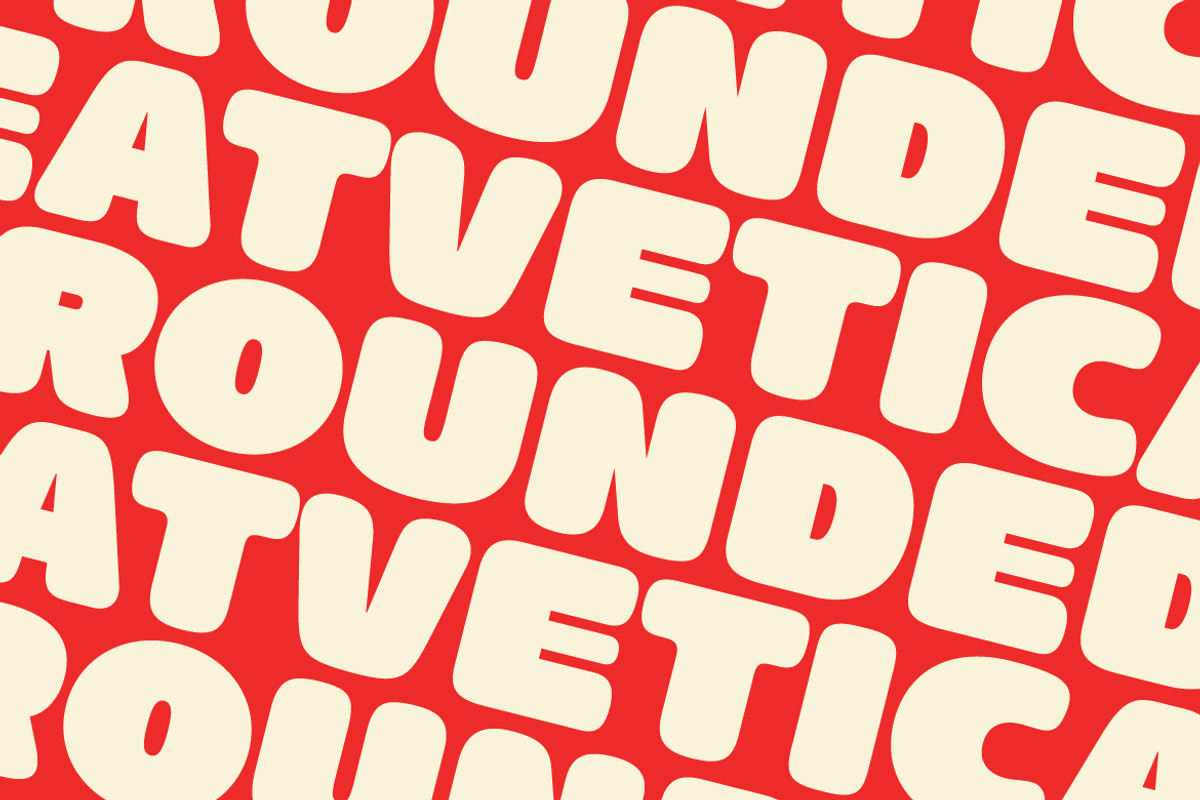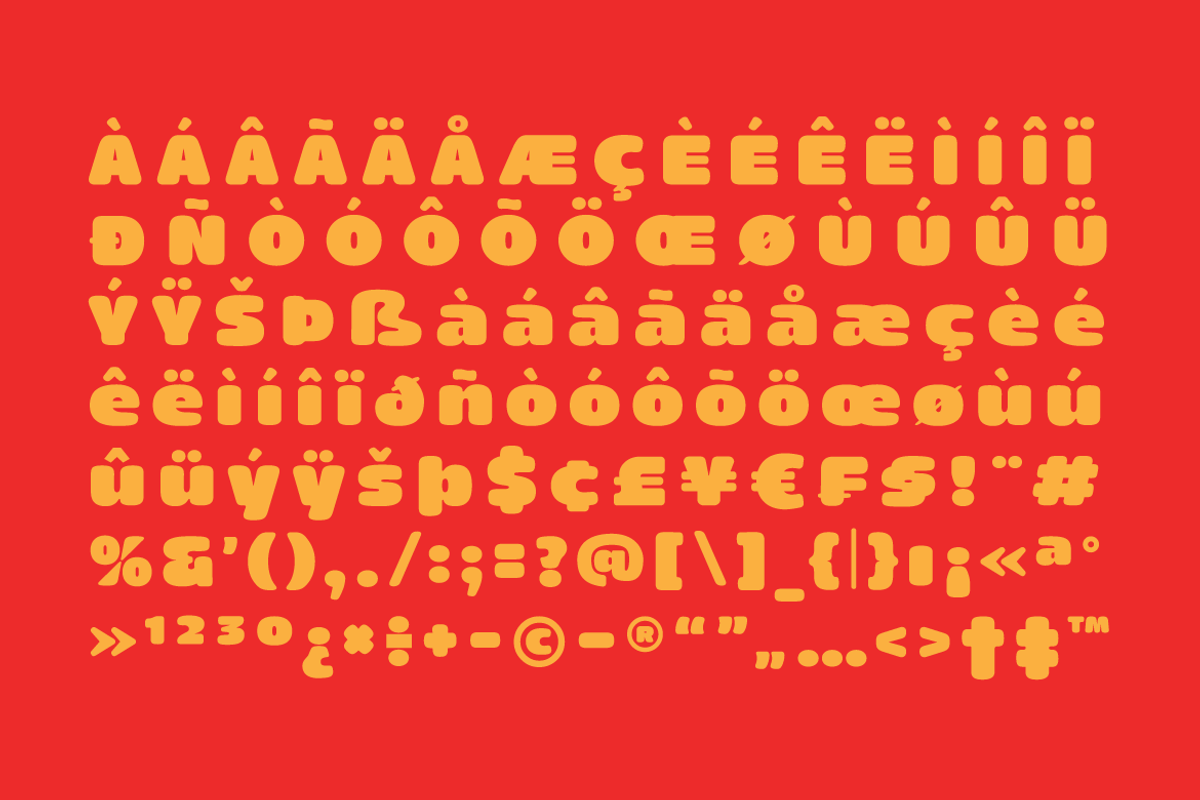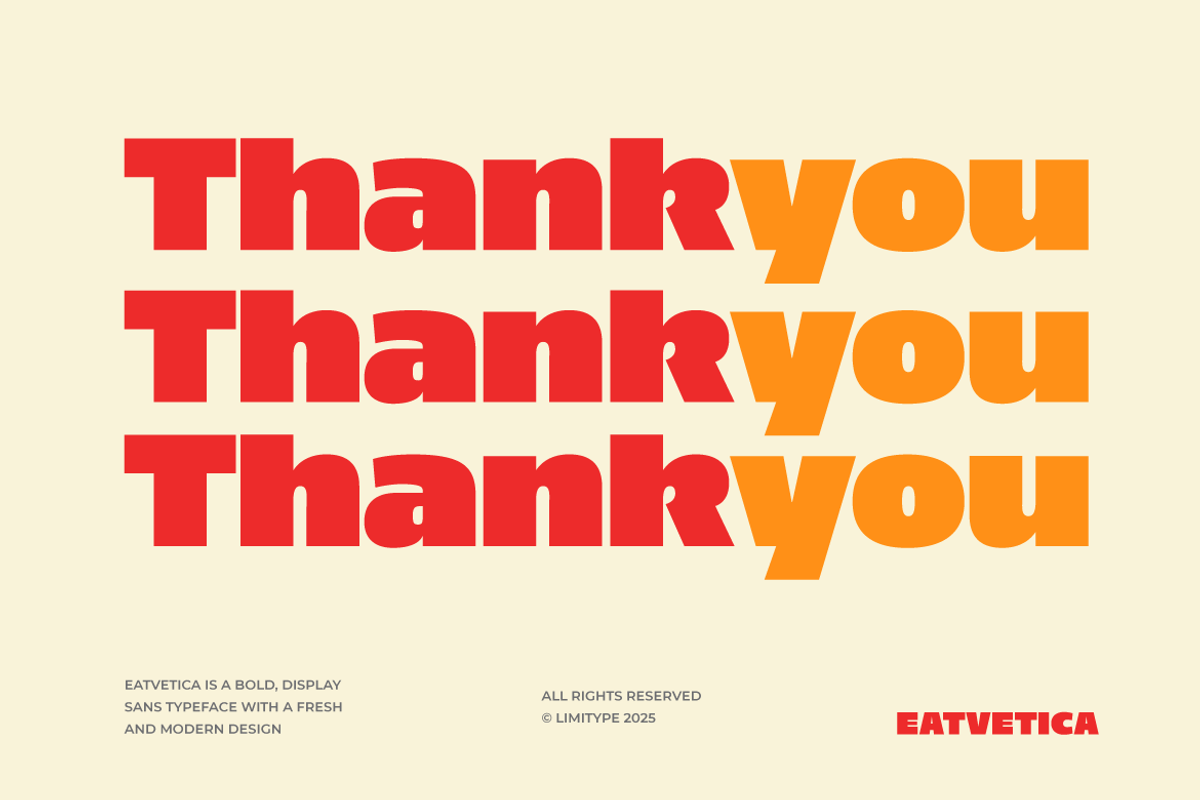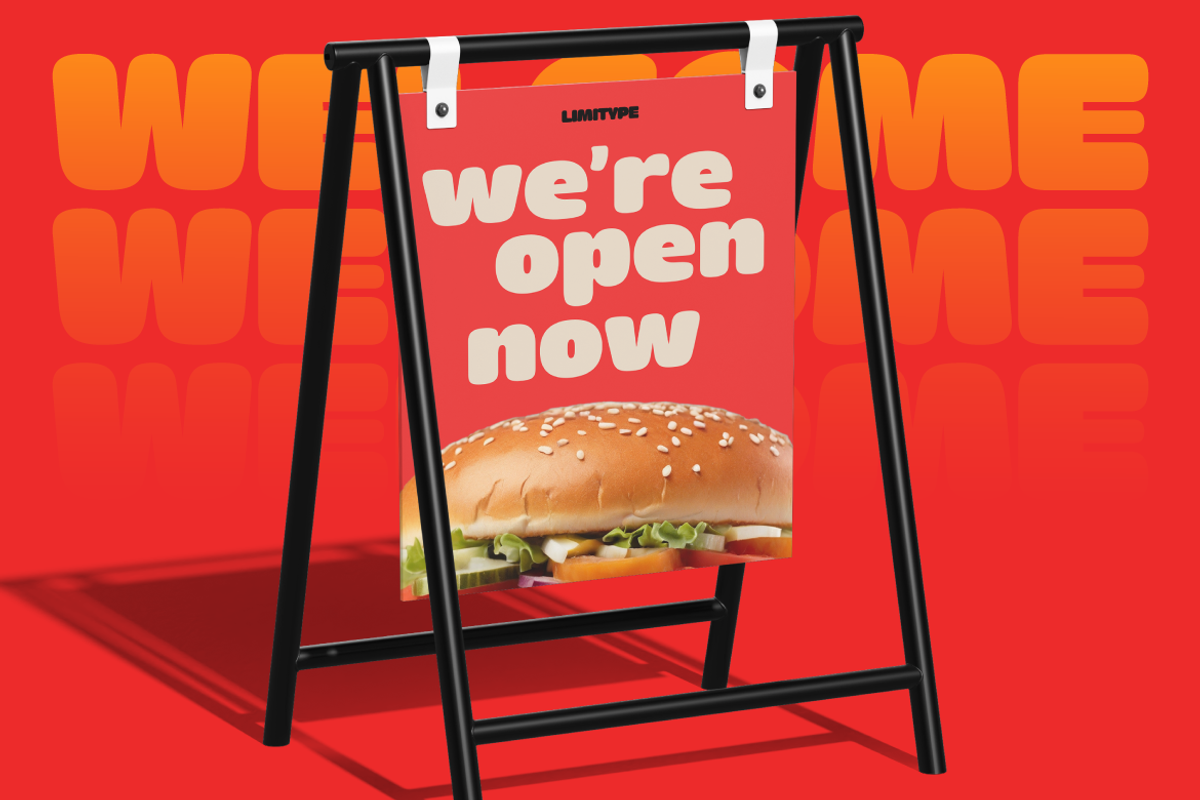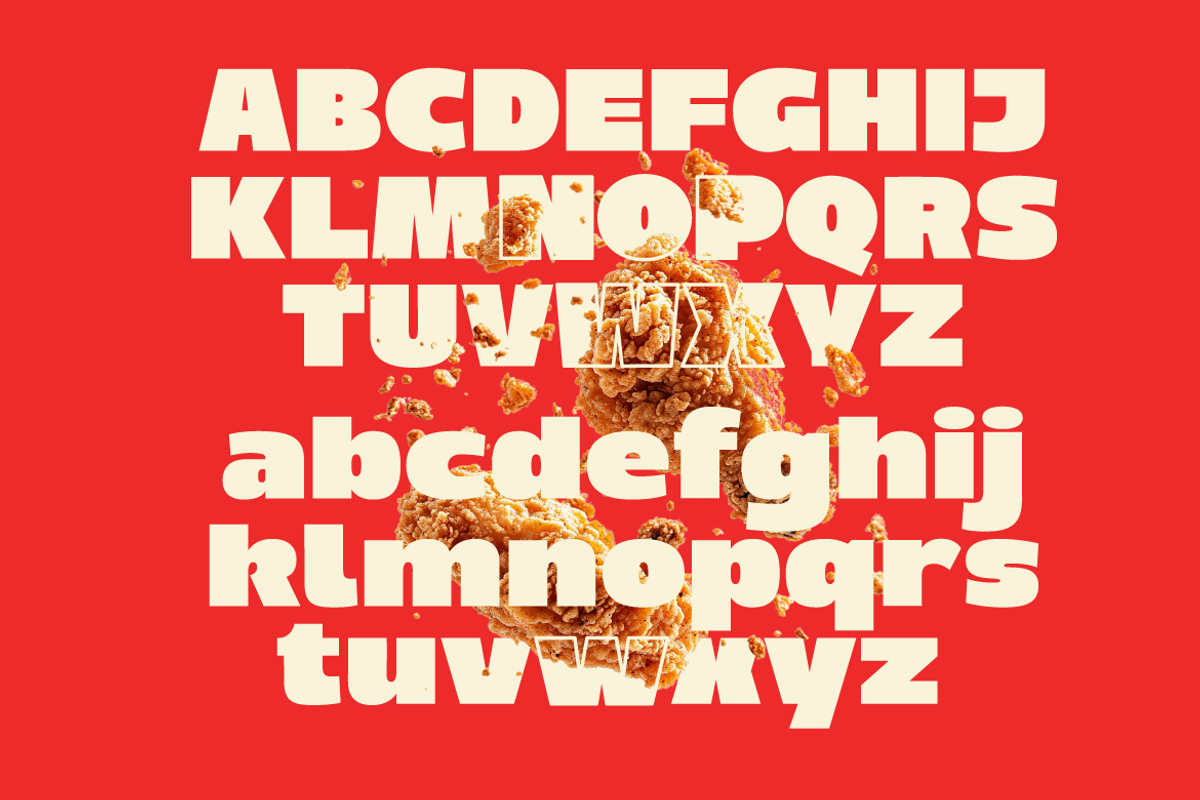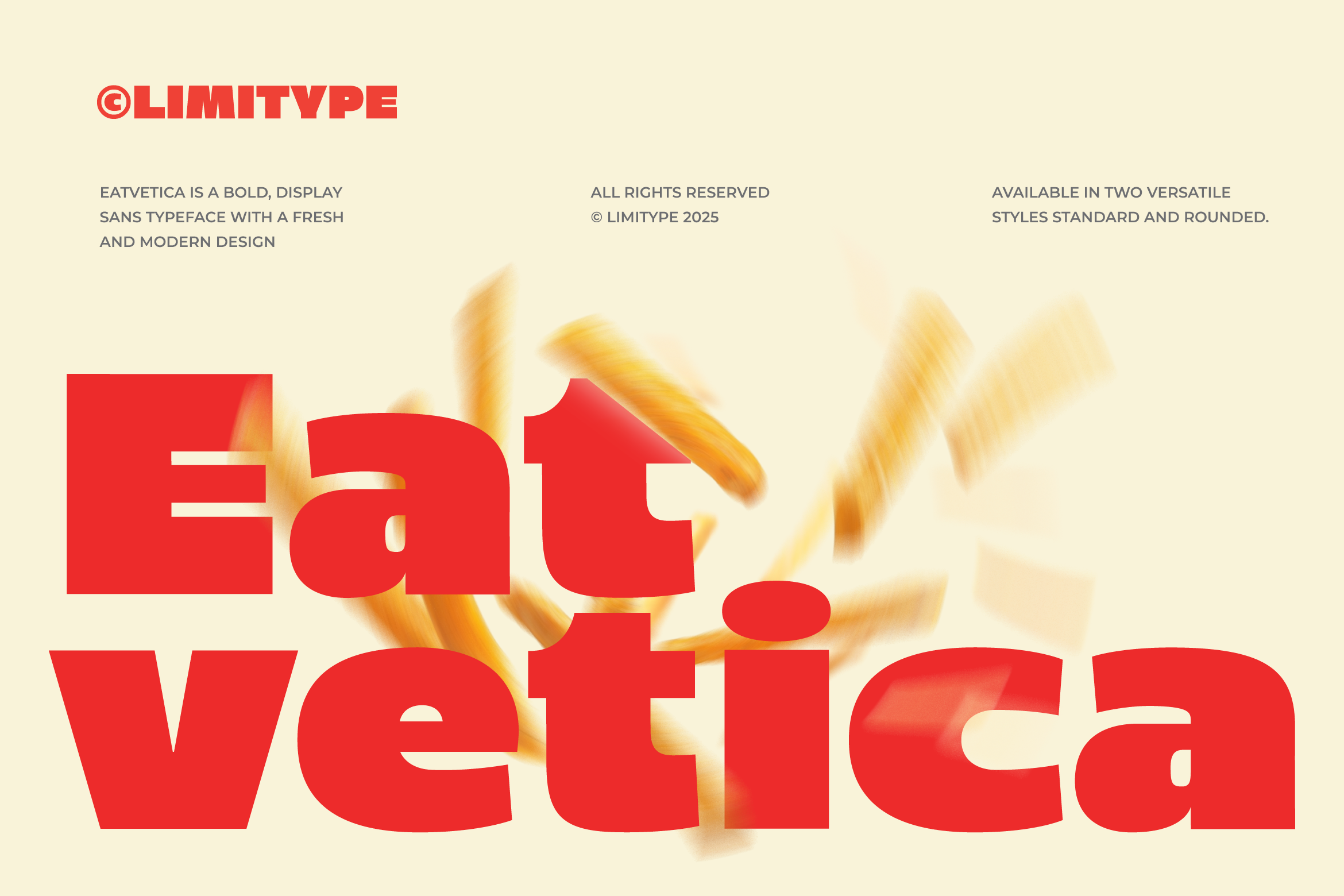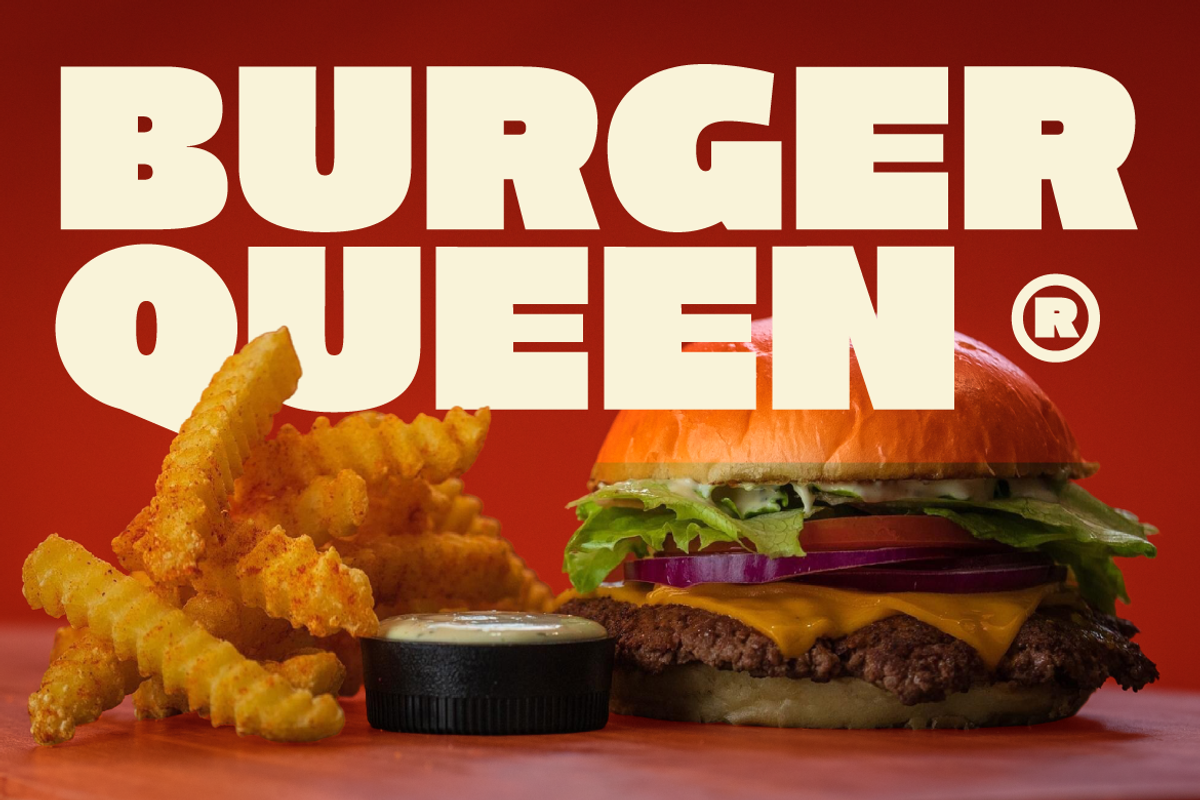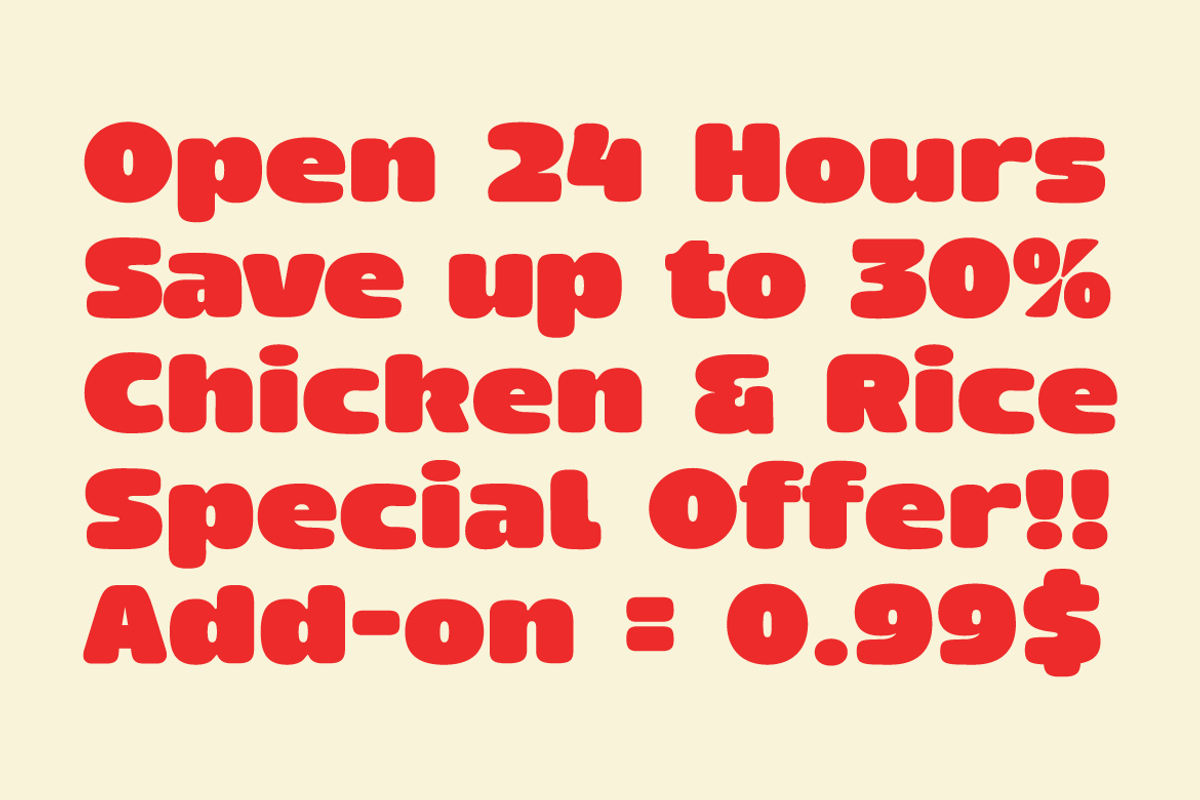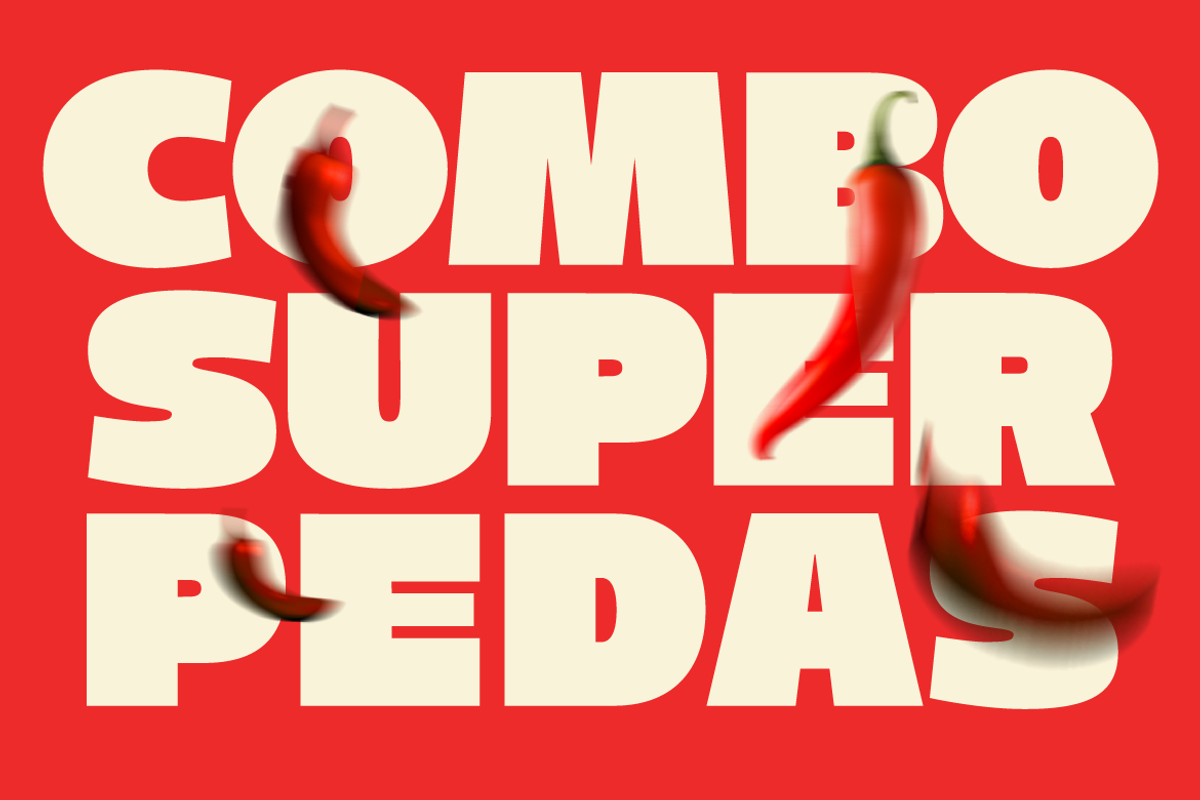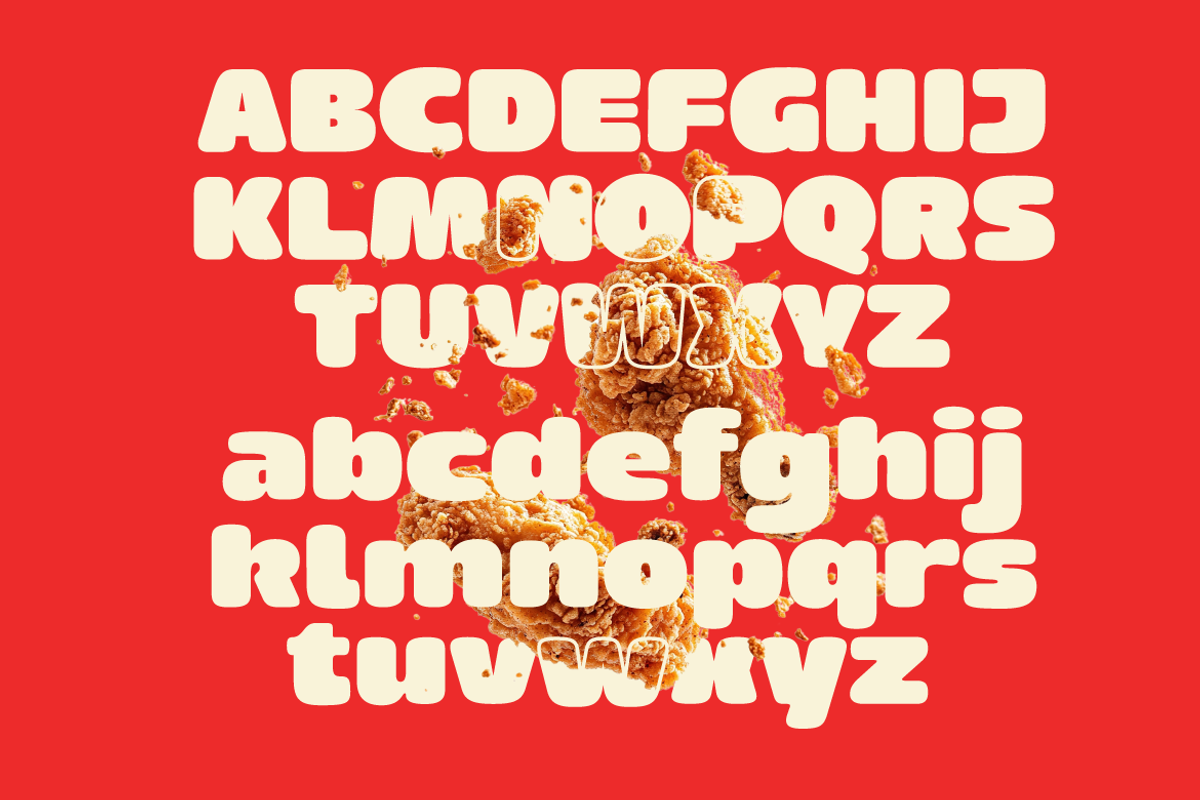
Eatvetica - Bold Food Font
Eatvetica – Bold Food Font
Add a bold flavor to every design with Eatvetica – Bold Food Font, a typeface crafted specifically for the culinary world and food-themed designs. With its strong and well-proportioned letterforms, Eatvetica delivers a powerful yet friendly look, making it the perfect choice for restaurant menus, food packaging, café branding, and promotional posters.
Available in two distinct styles: Standard, for a modern and clean appearance, and Rounded, for a warmer and more playful vibe. This combination offers maximum versatility for all your creative projects.